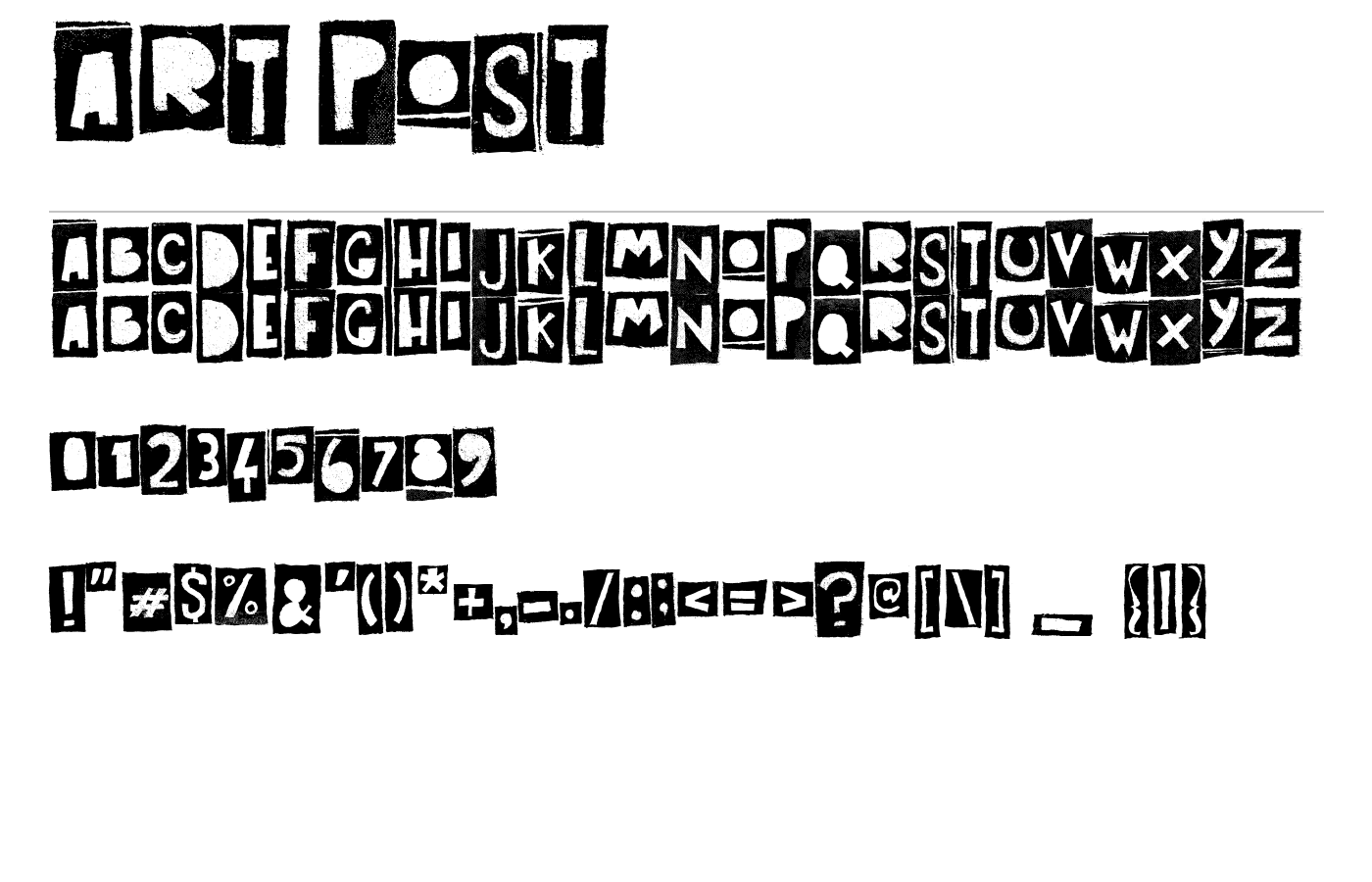
Art Post Font is a bold, hand-stamped sans serif style with a quirky, playful personality, featuring irregular letter shapes enclosed in black rectangles that give each glyph a unique, vintage collage feel. Its uneven edges and high contrast between black and white create an eye-catching, artistic look perfect for creative projects, posters, or branding that aims to stand out with a handcrafted, expressive vibe. This font works especially well in headline or logo use where character and spontaneity are key.
Art Post Font
About Art Post Font